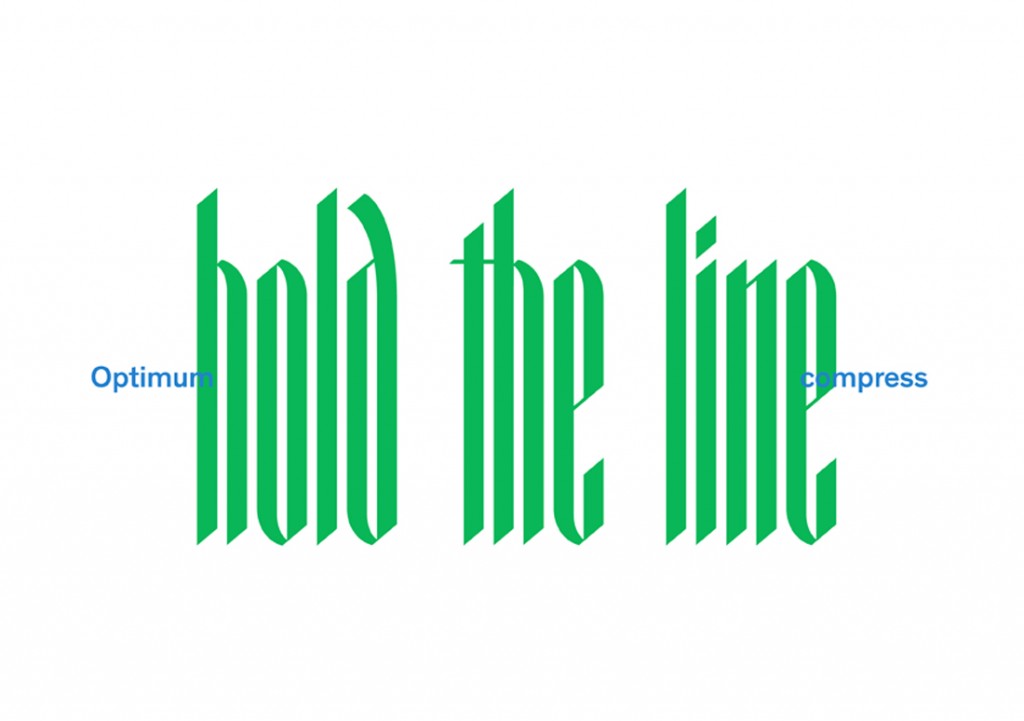
Name: Optimum Compress
Designer: Simon Bent
Foundry: T:D:F (The Designers Foundry)
Back story: Initially developed for a promo electronic music poster, designer Simon Bent wanted to create something that referenced old style Gothic script typefaces—taller, more angular, and futuristic, yet still comfortable in the land of dragons, knights, and drawbridges, as he puts it.
Why’s it called Optimum Compress? “I hadn’t actually decided on a name when we posted some type tests to Instagram: a poster with words ‘optimum compress maximum illegibility’ written on it,” says Bent. “As it was picked up by other blogs and on Tumblr, people began to refer to it as Optimum Compress. Fair enough, really! Rather than try and rename it, we worked with what had formed on its own.”
What are its distinguishing characteristics? The tall, narrow letterforms push the edges of legibility, blurring into pattern and shape once a word contains more than a few characters. The vertiginous effect can be put to good use in design situations where the ability to read the content is secondary to the visual impact alone.
What should I use it for? At the moment, you can’t. It’s still in development. Bent is busy finalizing the uppercase characters and additional glyphs for release in early spring 2016. In the meantime, experiment with other blackletter typefaces like Neudoerffer Fraktur or Grace to bring an element of the unexpected, say as a way to contrast ladylike clothes in a fashion editorial layout. We think these letterforms would also be gorgeous and dramatic in small doses on websites, for titles, splash screens, and the like.
Who’s it friends with? Assuming you’re going to need something legible to pair with it, this would be a good time to break out good old Helvetica or Akzidenz Grotesk. Or try Archer or Ecam.